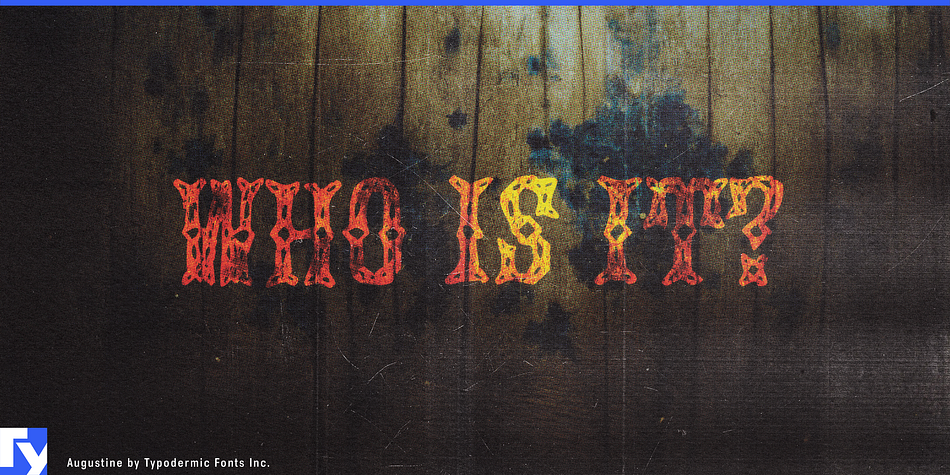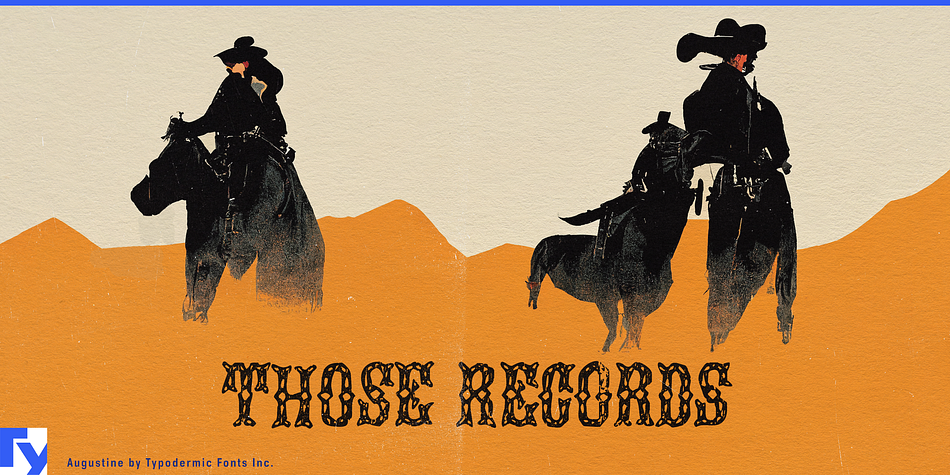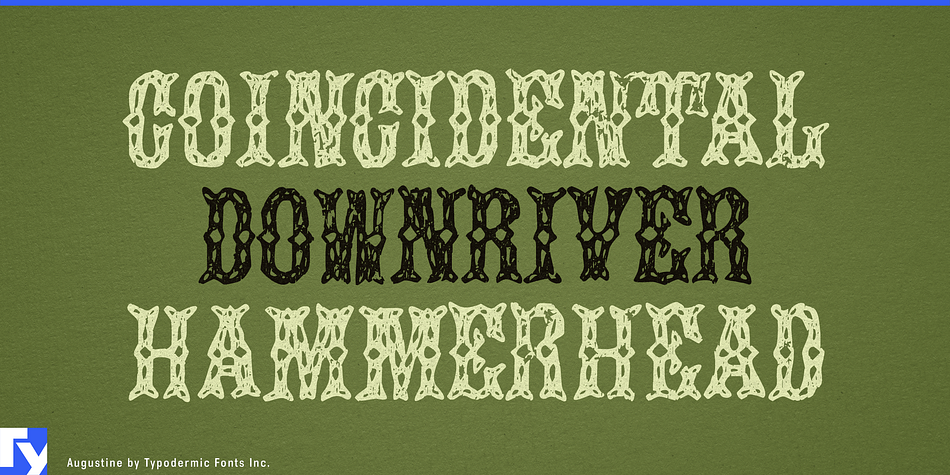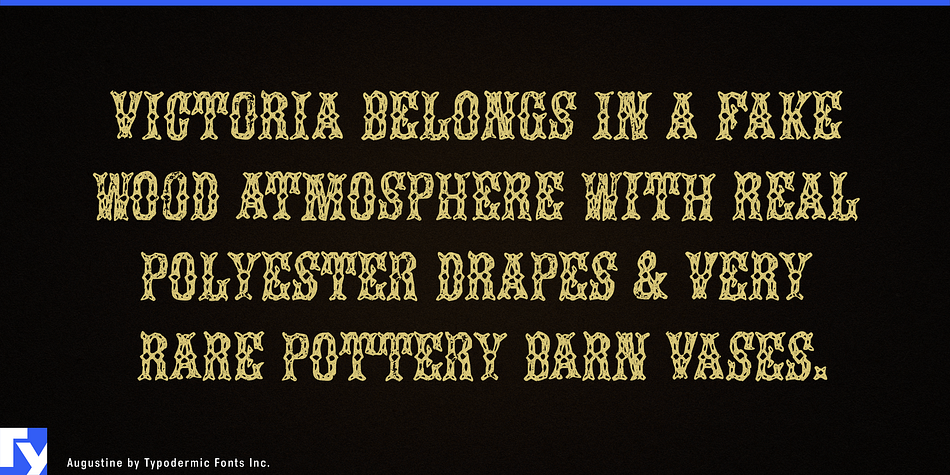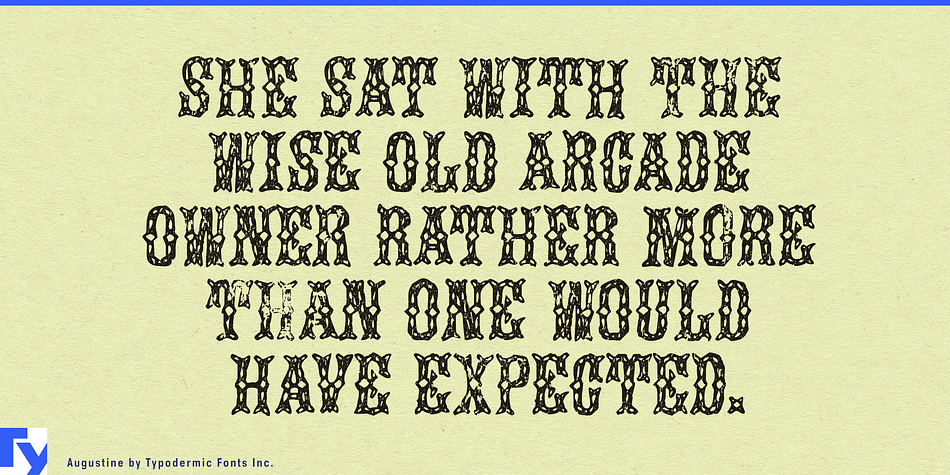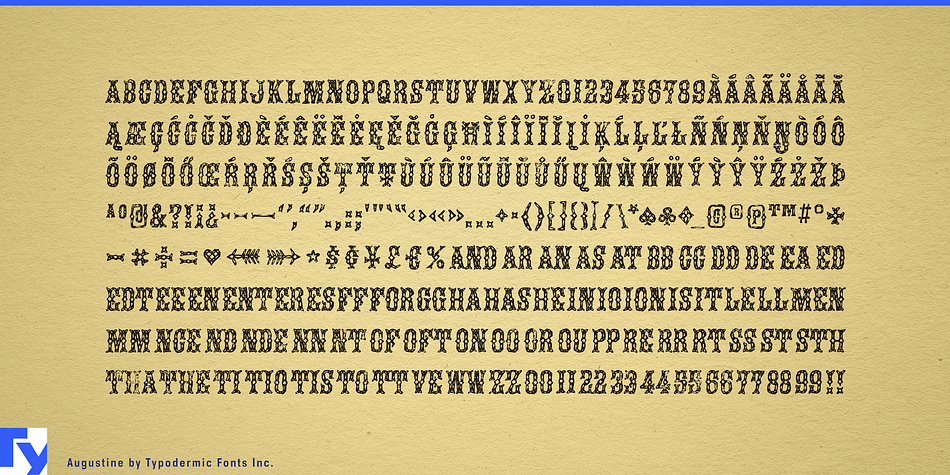
Augustine is a monograms, grunge and western font published by Typodermic Fonts Inc.
Augustine is a hand-cut stamp, Tuscan-style display typeface—highly decorative with a homespun look. Your application’s ligatures feature will replace common letter combinations with custom pairs to create more realistic hand stamped effect.